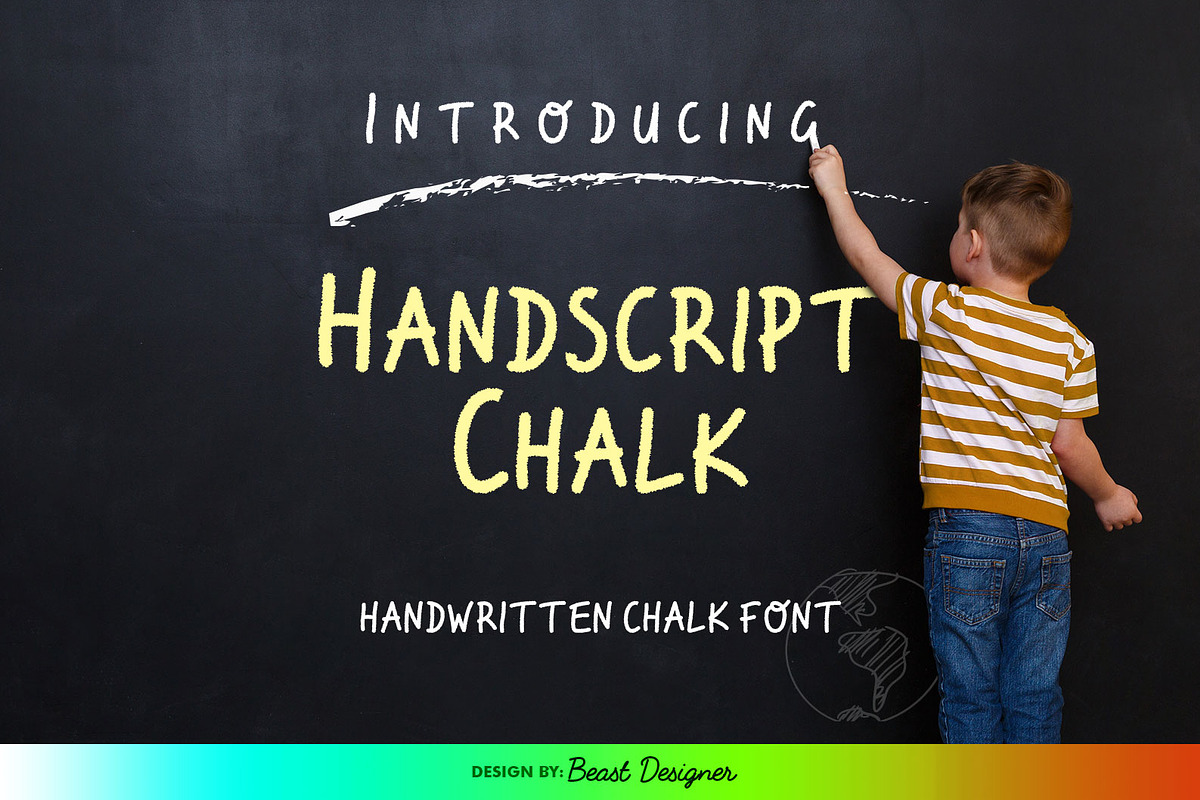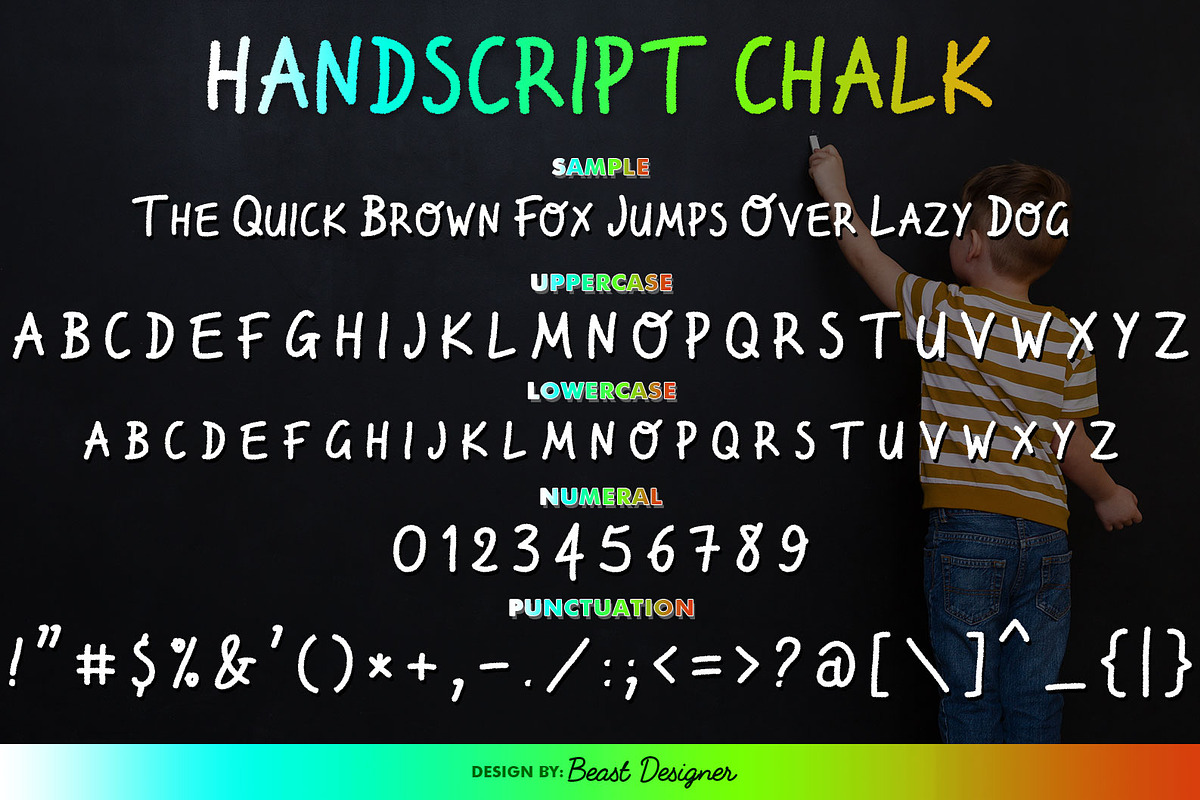
Handscript Chalk
Handscript Chalk Font is a delightful handwritten script font that evokes the charm of classic chalkboard writing. Its textured, chalk-styled letters give designs a nostalgic and playful feel. Perfect for school-themed projects, restaurant menus, invitations, quotes, or anything needing a personal touch, Handscript Chalk adds a unique hand-drawn element that stands out.